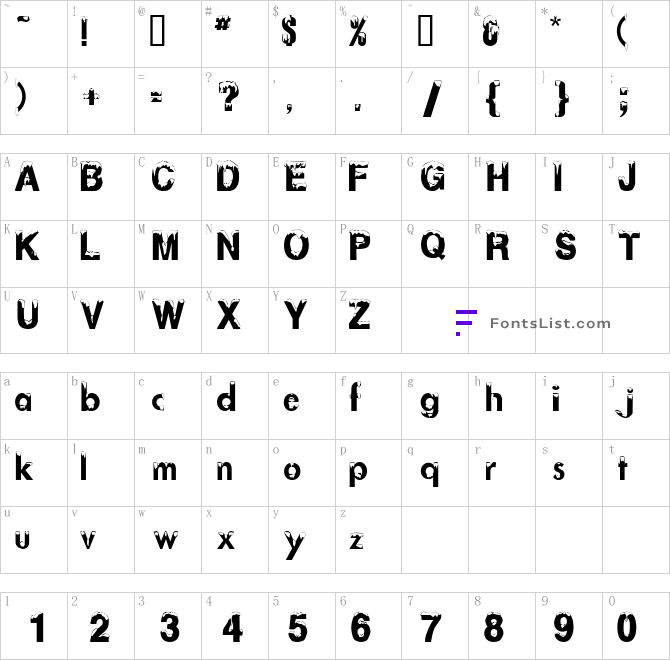
- Font Name:AlaskanNights
AlaskanNights.ttf is a very beautiful artistic font, AlaskanNights.ttf is widely used in the design and printing of various books and pictures,AlaskanNights.ttf has a strong visual impact,AlaskanNights.ttf is a commonly used font in newspapers, magazines and books, and is used in posters, e-commerce Poster design, store design, logo design, font design and other fields.AlaskanNights.